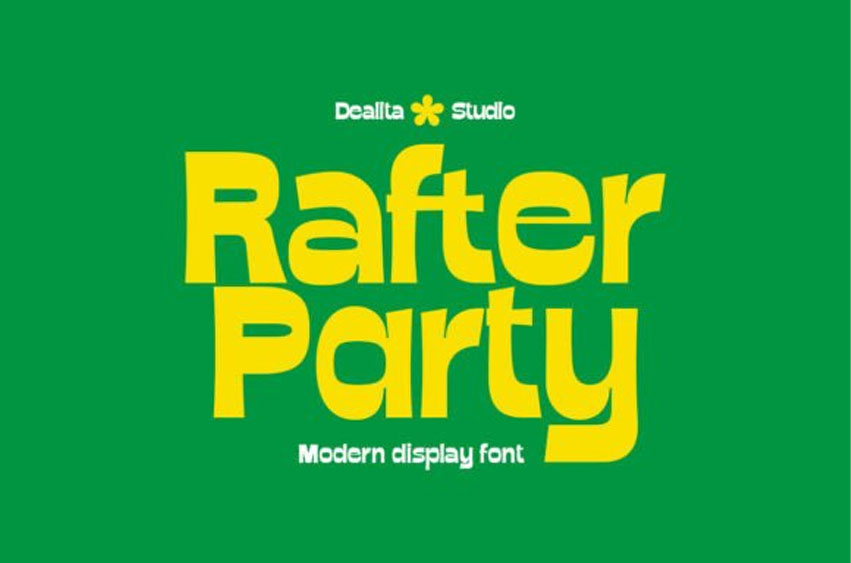
Rafter Party Font
Rafter Party Font is a bold, modern Sans Serif Font with a distinctive architectural edge. Designed for maximum impact, its strong geometric structure and subtle ink trap details make it perfect for projects that demand presence, sophistication, and a touch of avant-garde style. This typeface is a statement of strategic design, blending clean minimalism with unexpected character.
Its bold presence ensures your typography stands out — whether on a magazine cover, fashion label, or architectural concept.